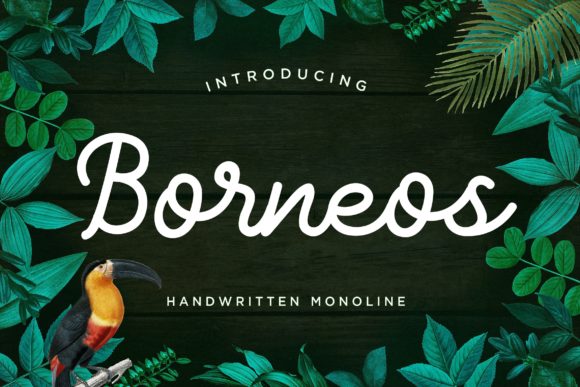
The Perfect Handwritten Touch: Discovering Borneos Font
I’ll never forget the time I was working on a wedding invitation project, and my client asked for a font that was ” elegant, yet playful” and would make their special day feel truly unique. I scoured the internet, tried out countless fonts, but nothing seemed quite right. That was until I stumbled upon Borneos Font. ✨
This beautiful, handwritten font has been a game-changer for my designs, and I’m excited to share its charm with you. In this article, we’ll explore what makes Borneos Font special, its features, and how to make the most of it in various design platforms.
A First Impression: What I Love About Borneos Font
Here’s what immediately drew me to Borneos Font:
- ✅ Unique and interesting handwritten style with well-rounded letters
- ✅ Adds a personal touch to any design
While Borneos Font has won my heart, it’s not without its quirks. Here’s a balanced view:
- ✨ The font’s distinct style adds a touch of elegance and whimsy to designs
- ⚠️ Some users might find the font a bit too rounded or soft for certain projects
The Story Behind Borneos Font
While the origins of Borneos Font might be shrouded in mystery, it’s clear that its designer aimed to create a unique, handwritten font that would bring warmth and personality to designs. Inspired by the beauty of handwritten letters, Borneos Font is a testament to the power of typography in crafting memorable experiences.
Q: What makes Borneos Font unique?
A: Borneos Font stands out due to its distinct, well-rounded letters and PUA encoding, which allows for easy access to glyphs and swashes.